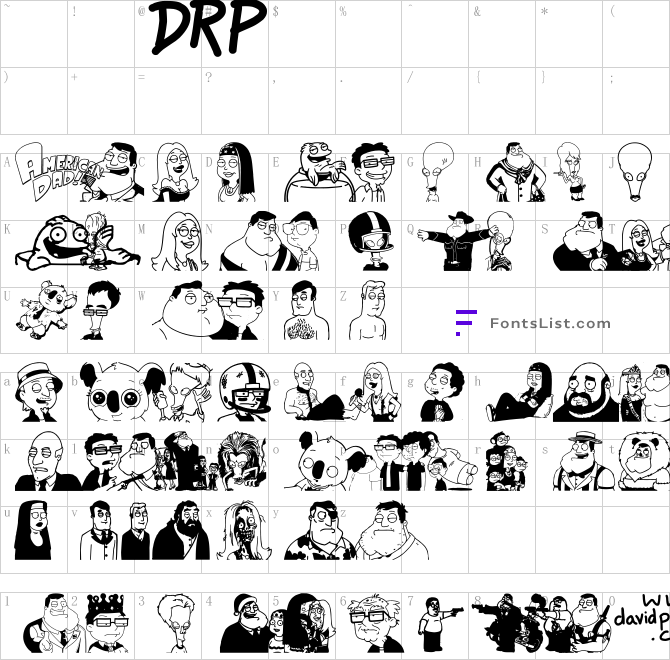
- Font Name:American Dad Good Morning USA
American-Dad-Good-Morning-USA.ttf is a very beautiful artistic font, American-Dad-Good-Morning-USA.ttf is widely used in the design and printing of various books and pictures,American-Dad-Good-Morning-USA.ttf has a strong visual impact,American-Dad-Good-Morning-USA.ttf is a commonly used font in newspapers, magazines and books, and is used in posters, e-commerce Poster design, store design, logo design, font design and other fields.American-Dad-Good-Morning-USA.